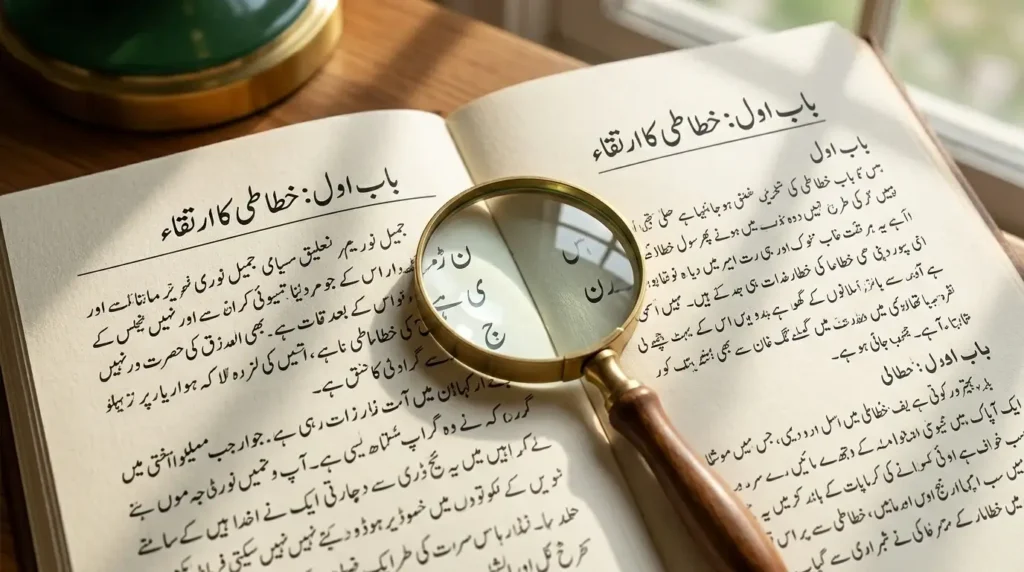
Best Urdu Fonts for Book Publishing & Printing – Author’s Guide
The best Urdu fonts for book publishing are the ones that survive hundreds of printed pages: Jameel Noori Nastaleeq for traditional books, Urdu Naskh Unicode for modern and academic text, Al Qalam Quran Majeed for Quran printing, and Tehreer Regular for contemporary titles. Choose by print behaviour — justified columns, Kashida support and print-safe sizes — not by how a font looks on a screen. This guide gives the print criteria, the picks, and the fixes for the problems publishers meet.
What Makes a Font Work for Book Publishing
- Long-form readability: the font must stay comfortable across thousands of words — even strokes, open counters, no eye-tiring decoration.
- Justified-column behaviour: Urdu books are usually set fully justified; the font should work with Kashida (elongation) so lines fill evenly without ugly gaps.
- Print-safe at body size: Nastaliq fonts with very tall ascenders need generous leading or lines collide in print — test at 11–13pt on paper, not just on screen.
- Complete glyph coverage: novels, textbooks and religious books need the full Urdu character set plus marks — missing glyphs surface as boxes mid-run.
The Picks: Best Urdu Fonts for Books
Urdu novels and poetry — Jameel Noori Nastaleeq
The industry standard for Urdu fiction and verse. Its sloped Nastaliq is what readers expect on a novel’s page, and Jameel Noori Nastaleeq (with the Kasheeda variant for justified paragraphs) handles long text reliably.
Academic textbooks — Urdu Naskh Unicode
Modern publications and textbooks read best in a clean Naskh. Urdu Naskh Unicode Regular is light, neutral and dependable at body sizes — the calm choice when content, not calligraphy, must carry the page.
Quran and Islamic books — Al Qalam Quran Majeed
Scripture needs full marking support and a classical hand. Al Qalam Quran Majeed is built for Quranic Arabic with the vowel marks and spacing religious printing requires.
Contemporary books — Tehreer Regular
For minimal, modern titles, Tehreer Regular gives a clean, understated line with 689 verified glyphs — contemporary feel without calligraphic weight.
Manuals and instructional books — UL Amjad Regular
Instructional text needs a sturdy, highly legible face. UL Amjad Regular holds up in dense step-by-step layouts.
Chapter headings — UL Noreen Bold
Headings need weight contrast against the body. UL Noreen Bold Regular is a natural chapter-title companion to any of the body fonts above.
Open-licence option — Noto Nastaliq Urdu
When a project needs a clearly open licence, Noto Nastaliq Urdu from Google Fonts is the well-known open-licensed Nastaliq — check its current licence on the Google Fonts page before a commercial run.
Nastaleeq vs Naskh for Books
Choose Nastaleeq for traditional fiction, poetry and religious publishing — it is what the audience expects. Choose Naskh for textbooks, manuals, children’s books and anything where clarity at small sizes matters most. The deeper comparison is in our Urdu Nastaliq fonts guide.
Font Size and Line Spacing for Print
- Body text: 11–13pt for Nastaliq faces (their tall lines need the room), 10–12pt for Naskh.
- Leading: set line spacing at least 1.4× the font size for Nastaliq to prevent mark collisions.
- Margins: Urdu’s tall line height eats page space — plan generous top and bottom margins before finalising the page count.
- Proof on paper: always print a test chapter; screen rendering hides the collisions and tight leading that print reveals.
Why Some Urdu Fonts Fail in Print
The usual culprits: non-Unicode fonts that looked fine in one app but break in the printer’s RIP; fonts without Kashida support producing ragged justified columns; missing glyphs appearing as boxes; and display fonts chosen for a cover being set as body text. Fix each by switching to a Unicode print-tested font from the picks above and re-proofing. The common Urdu font problems and fixes guide covers the general rendering failures.
| Problem | Solution |
|---|---|
| Justified columns look ragged | Use a font with Kashida support (Jameel Noori Nastaleeq Kasheeda) and enable Kashida justification in the layout app |
| Lines collide in print | Increase leading to at least 1.4× for Nastaliq faces |
| Boxes appear mid-run | A glyph is missing from the font — switch to a full-coverage Unicode font and re-proof |
Which font is best for Urdu poetry books?
Jameel Noori Nastaleeq — its calligraphic slope is the traditional voice of Urdu verse, and it handles the long lines of poetry well.
What tools help with Urdu book typography?
A layout app with Kashida justification (InDesign with the right settings, or InPage for traditional workflows), plus a Unicode font from the picks above — and always a printed proof before the full run.